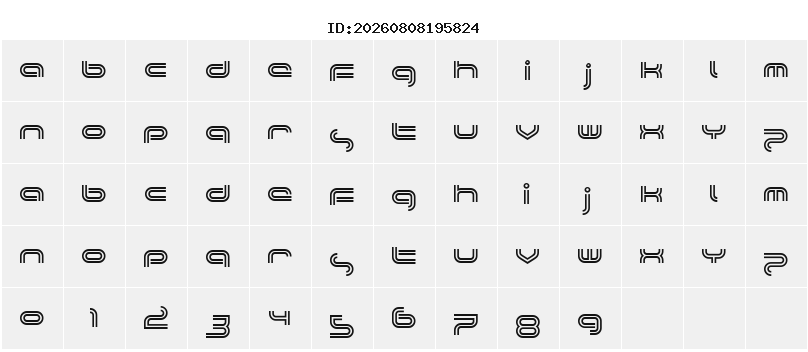
• Font Name: Planet TriColore
About Planet TriColore.ttf
Planet TriColore.ttf is a modern, elegant sans-serif font designed for ultimate readability and visual harmony. Perfect for branding, headlines, web design, and print materials.